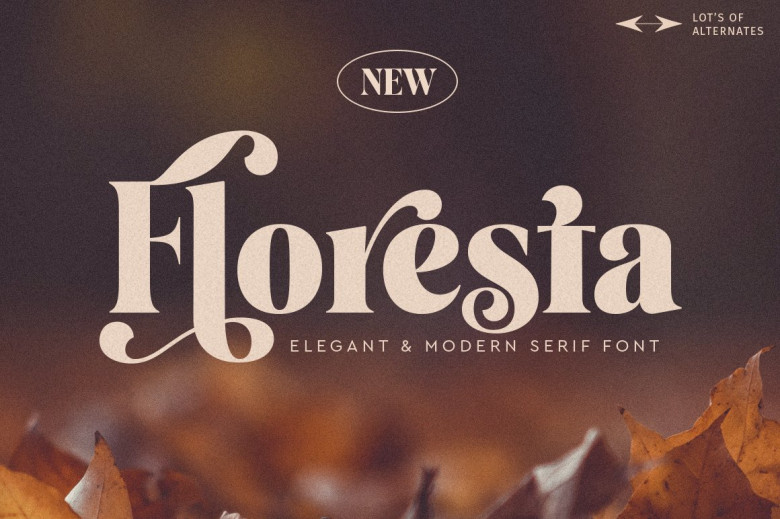
Floresta Font
Floresta is a modern vintage  serif font font pair from Vultype Co. which is modern and fascinate style. With modern-classy style and combines with a pair of san serif to create fun flow taste. There are many features such as OpenType features to access a pretty large selection of alternates letters and ligatures, the choice of letters you like from variations of uppercase and lowercase letters to get a display luxurious and elegant.
Floresta has 433 glyphs. 11 ligatures. 197 alternates to beautify the design you like. This font is perfect for your branding projects, Logo design, Clothing Branding, packaging, magazine headings, advertising, T-shirts, postcards and much more than the previews designs.
Floresta Serif Font